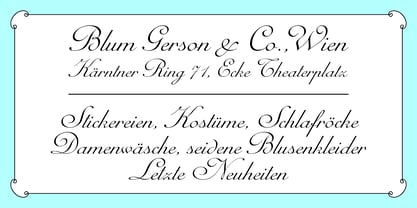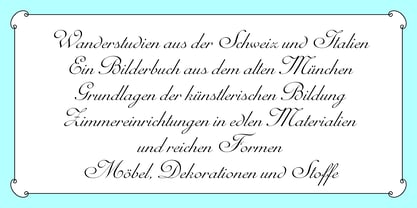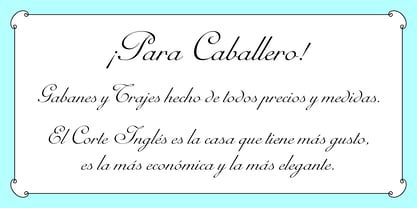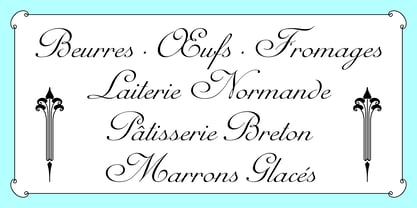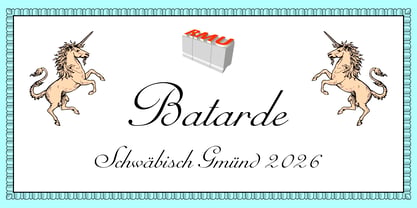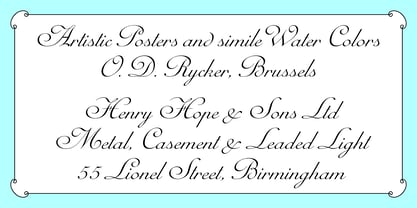
Batarde™
The Batarde Font Family was designed by Ralph M. Unger and published by RMU. Batarde contains 1 styles. More about this family
Inspired by the beautiful baroque-style font Batarde, released by the Bauersche Giesserei at the beginning of the 20th century, the font was freshly redrawn and redesigned for modern use. The glyphs are mostly joining. The letters F, L, M, N, Q, T, d, and s have stylistic alternatives. The curved d can be reached by typing the partialdiff sign [ ∂ ], or by changing the normal d into its alternative using the OT-feature. The s comes in two variants, with and without an upstroke.